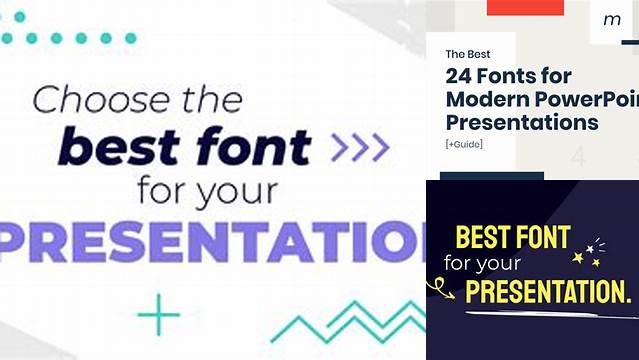
Top Fonts For Engaging PowerPoint Presentations
Choosing the best fonts for PowerPoint presentations can dramatically impact how well your message is received. Think of fonts as the voice of your text; they convey tone and clarity. In the realm of presentations, readability and visual appeal are king. You want fonts that keep your audience engaged without causing eye strain or distraction. This means avoiding overly decorative or complex typefaces that might look pretty but sacrifice legibility. Instead, focus on clean, professional fonts that ensure your content is easily digestible from any distance. A well-chosen font enhances the overall design and reinforces your message, making your presentation more effective and memorable. Selecting the right font is an essential part of creating a polished and impactful presentation. Considering aspects like font size, contrast, and the context of your presentation will help you strike the perfect balance between aesthetics and functionality. Ultimately, the best fonts are those that fade into the background, allowing your content to shine while maintaining a professional and cohesive look.
Why Font Choice Matters in Presentations
The right font choice in presentations matters because it significantly impacts audience engagement and comprehension. Imagine sitting in a presentation where the font is too small, too fancy, or simply hard to read – you’d likely tune out pretty quickly, right? Fonts are not just about aesthetics; they are about functionality. A clear, readable font ensures that your audience can easily follow along with your message. The best fonts for PowerPoint presentations are those that strike a balance between visual appeal and legibility. They help maintain attention and prevent eye strain, allowing your audience to focus on the content rather than struggling to decipher the text. Moreover, fonts can set the tone of your presentation. A formal font might be suitable for a corporate presentation, while a slightly more relaxed font could work well for a creative pitch. By carefully selecting your fonts, you can enhance the overall impact of your presentation and ensure that your message is effectively communicated. Remember, the goal is to make your content accessible and engaging, and the right font choice is a crucial step in achieving that. So, give your font selection the attention it deserves – it can make all the difference.
Top Font Recommendations for PowerPoint
When it comes to the top font recommendations for PowerPoint, several stand out for their readability and professional appearance. Arial is a classic sans-serif font that’s clean, simple, and highly legible, making it a safe bet for any presentation. Calibri, another popular sans-serif option, offers a slightly more modern feel while maintaining excellent readability. For those who prefer serif fonts, Times New Roman is a reliable choice, though it can sometimes feel a bit dated. A more contemporary serif option is Georgia, which is designed for screen readability and adds a touch of elegance to your slides. Beyond these standards, consider Helvetica for a sleek, minimalist look, or Verdana, which is specifically designed for on-screen viewing. If you're looking for something a bit different but still professional, Open Sans and Lato are excellent sans-serif alternatives that are both modern and highly readable. Remember to test your font choices on different screens and in various lighting conditions to ensure they remain legible. Ultimately, the best font is one that complements your content and enhances the overall visual appeal of your presentation without distracting from your message. Experiment with different options to find the perfect fit for your specific needs.
Sans-Serif vs. Serif Fonts: What’s the Difference?
Understanding the difference between sans-serif and serif fonts is crucial for making informed decisions about your presentation's typography. Sans-serif fonts, like Arial and Helvetica, are characterized by their clean, simple lines without any extra strokes or embellishments at the ends of the letters. This makes them appear modern and minimalist, and they are generally considered easier to read on screens. The best fonts for PowerPoint presentations often include sans-serif options because of their clarity and legibility in digital formats. Serif fonts, on the other hand, such as Times New Roman and Georgia, have small decorative strokes or “serifs” at the ends of the letters. These fonts tend to have a more traditional and formal appearance. While serifs can enhance readability in print, they can sometimes appear cluttered on screens, especially at smaller sizes or lower resolutions. The choice between sans-serif and serif fonts often depends on the context of your presentation and your personal preference. Sans-serif fonts are typically favored for their modern look and screen readability, while serif fonts can add a touch of elegance and formality. Experiment with both types to see which best suits your content and audience.
Font Pairing Tips for Visual Harmony
Achieving visual harmony through font pairing is an art that can significantly elevate the look and feel of your presentation. The best fonts for PowerPoint presentations aren't just about individual readability; they also need to work well together. A general rule of thumb is to pair a sans-serif font with a serif font to create contrast and visual interest. For example, you might use a clean sans-serif font like Arial for your headings and a more traditional serif font like Georgia for your body text. Avoid using two fonts that are too similar, as this can create a bland and uninspired look. Instead, look for fonts that complement each other while still maintaining distinct characteristics. Another tip is to limit yourself to a maximum of two or three fonts per presentation to avoid a cluttered and chaotic appearance. Consistency is key, so stick to your chosen font pairings throughout your slides. Consider the overall tone and style of your presentation when selecting your fonts. A formal presentation might benefit from a classic serif and sans-serif pairing, while a more creative presentation could use bolder and more unconventional font combinations. Experiment with different pairings and always test your choices on various screens to ensure they remain legible and visually appealing.
Font Size and Readability Best Practices
Optimizing font size and readability is paramount for ensuring your audience can easily follow your presentation. The best fonts for PowerPoint presentations are rendered useless if they are too small to read or too large and overwhelming. A good starting point for body text is around 24-28 points, while headings should be larger, typically in the 36-48 point range. However, these are just guidelines, and the ideal font size can vary depending on the font itself, the screen resolution, and the viewing distance. Always test your slides on the actual presentation screen to ensure that the text is legible from the back of the room. Pay attention to the spacing between lines of text, as too little spacing can make the text appear cramped and difficult to read. Adjust the line spacing to create a more open and inviting layout. Also, consider the contrast between your text and background. Dark text on a light background is generally the easiest to read, but you can also use light text on a dark background, provided there is sufficient contrast. Avoid using colors that are too similar, as this can strain the eyes. By carefully considering font size, line spacing, and contrast, you can create slides that are both visually appealing and highly readable.
Common Font Mistakes to Avoid
Avoiding common font mistakes is crucial for creating professional and effective PowerPoint presentations. One of the biggest mistakes is using too many different fonts. Sticking to a maximum of two or three fonts ensures a cohesive and polished look. Another common error is using fonts that are difficult to read, either because they are too decorative or too small. The best fonts for PowerPoint presentations prioritize readability above all else. Avoid using script fonts or overly stylized fonts for large blocks of text, as they can strain the eyes and distract from your message. Be mindful of font size, ensuring that your text is legible from the back of the room. Another mistake is using inconsistent font styles throughout your presentation. Maintain consistency in font choice, size, and color to create a professional and unified appearance. Also, avoid using default fonts like Times New Roman without considering whether they are the best fit for your content. Experiment with different options to find fonts that complement your message and enhance the overall visual appeal of your slides. By avoiding these common font mistakes, you can create presentations that are both visually appealing and highly effective.
Ensuring Font Compatibility Across Devices
Ensuring font compatibility across devices is a critical aspect of creating presentations that look consistent regardless of where they are viewed. The best fonts for PowerPoint presentations are those that are widely available and supported on most systems. Common fonts like Arial, Times New Roman, Calibri, and Helvetica are generally safe choices, as they are typically pre-installed on Windows and macOS. However, if you use more unique or custom fonts, there is a risk that they may not be available on the presentation computer, causing the text to be displayed in a different font or replaced with a default font. To avoid this issue, you can embed the fonts in your PowerPoint file. Embedding ensures that the fonts are included with the presentation, so they will display correctly even if they are not installed on the viewing device. To embed fonts, go to File > Options > Save and check the box that says “Embed fonts in the file.” Keep in mind that embedding fonts can increase the file size of your presentation, so use this feature judiciously. Another option is to convert your text to images, which ensures that the fonts will display correctly but can also make your presentation less editable. By taking these precautions, you can ensure that your fonts display correctly and your presentation looks its best, no matter where it is presented.